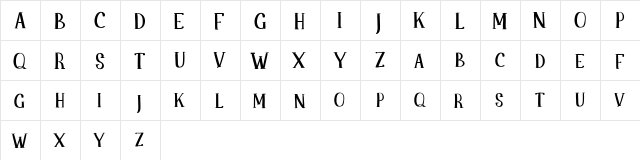
Belanie FREE Regular
Design Context for Belanie FREE Typeface
Belanie FREE offers clean, dependable letterforms without strong stylistic allegiance, making it a practical choice for designers who need flexibility.